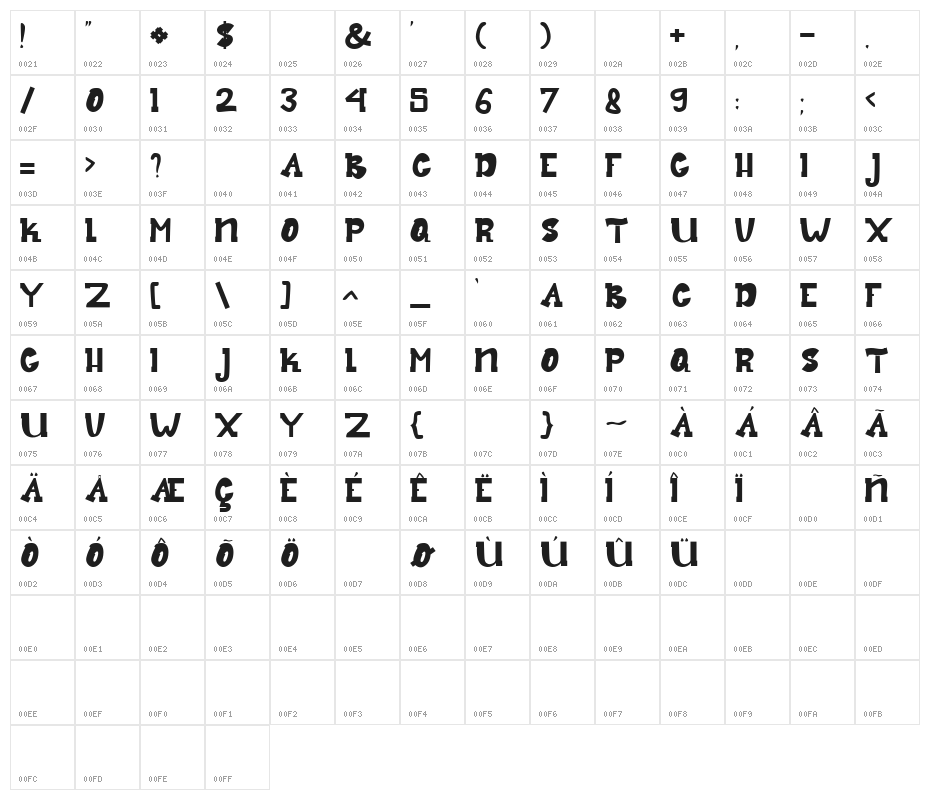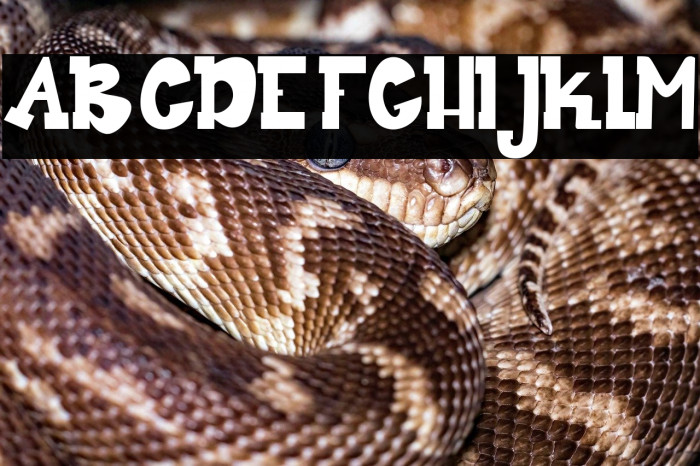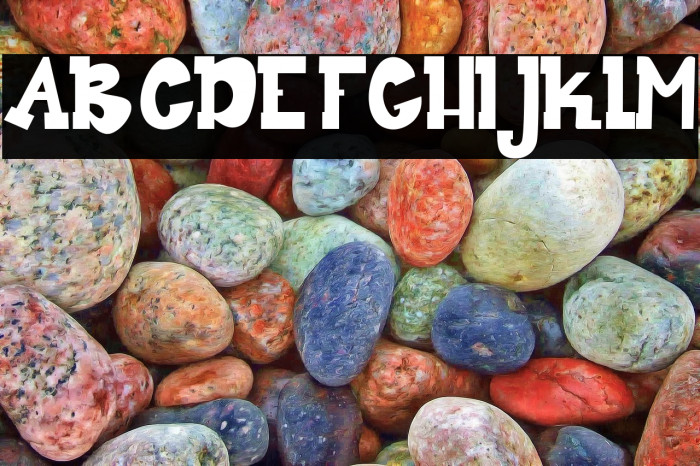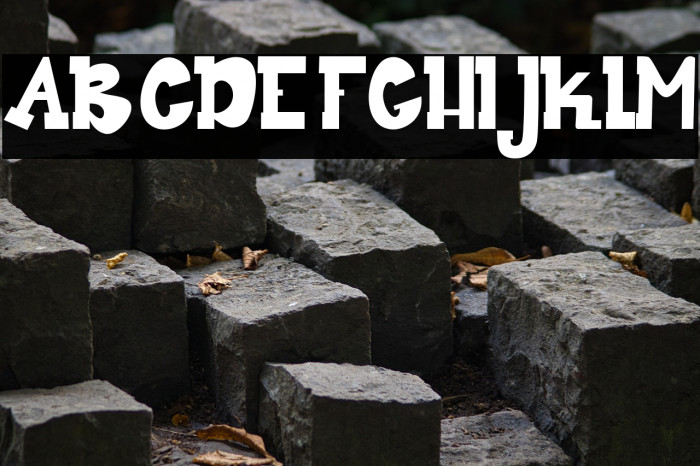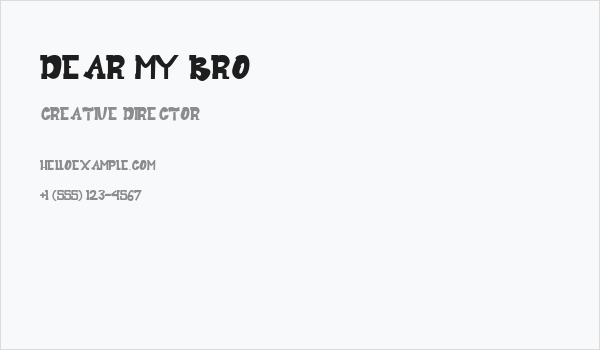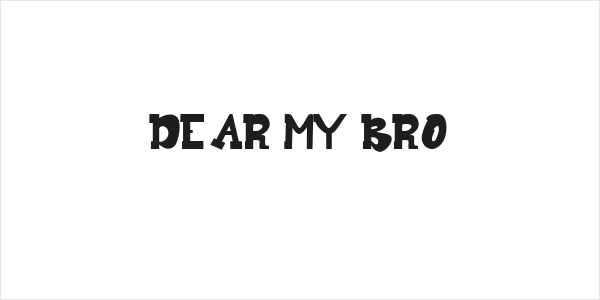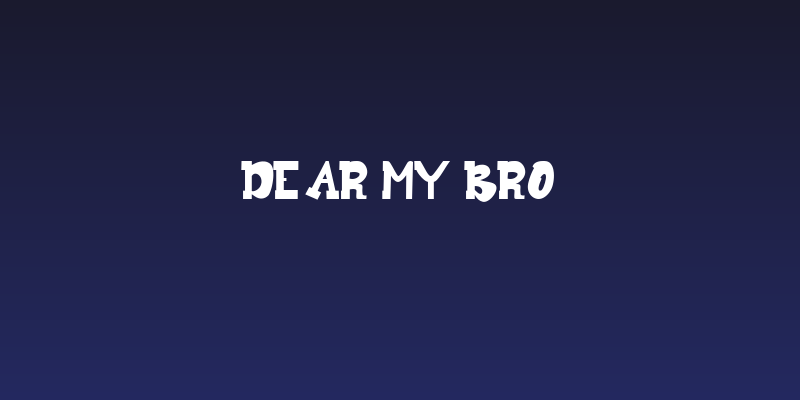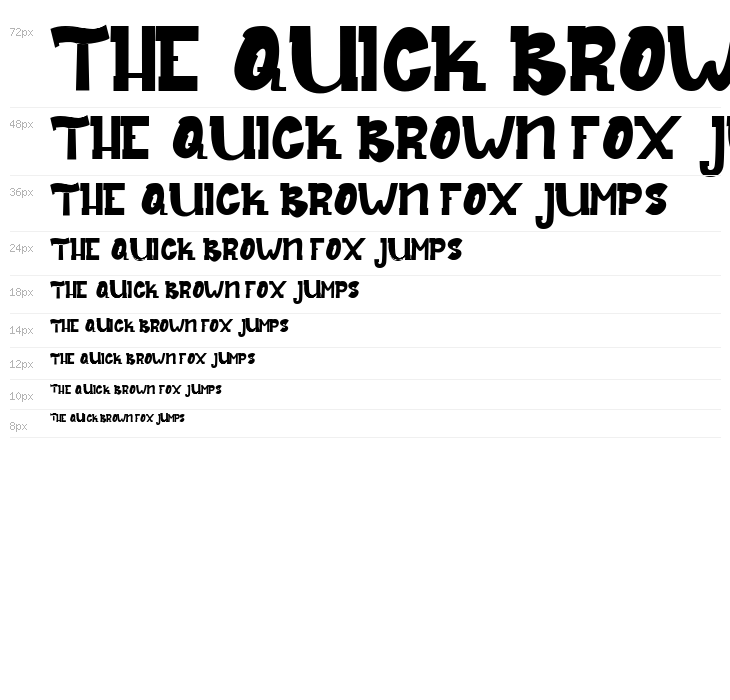
Dear My Bro Font
Dear My Bro Description
This font features a playful and bold design, characterized by its exaggerated serifs and whimsical curves. The uppercase letters are robust and dynamic, with a sense of movement that adds a lively touch to any text. The lowercase letters maintain this playful style, offering a cohesive look across different cases. Numbers and special characters are equally bold, ensuring consistency throughout. The font's unique style makes it stand out, with each character having a distinct personality. Its boldness and decorative elements make it suitable for eye-catching designs.
| Proposed Projects | Ideal for children's books, playful branding, posters, and creative invitations. |